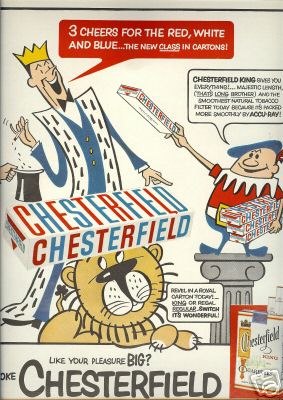
Very nice!
I think your E and F may be too wide.
... and not sure about that 'g' ear, but otherwise great.
Always appreciate these good critiques. The 'E' and 'F' have been narrowed and the eccentric 'g' (like all good eccentrics), has lost its ear.
Crisp and clean! Nice usage of brick overlays.
The inspiration.
PERFECT TYPO !